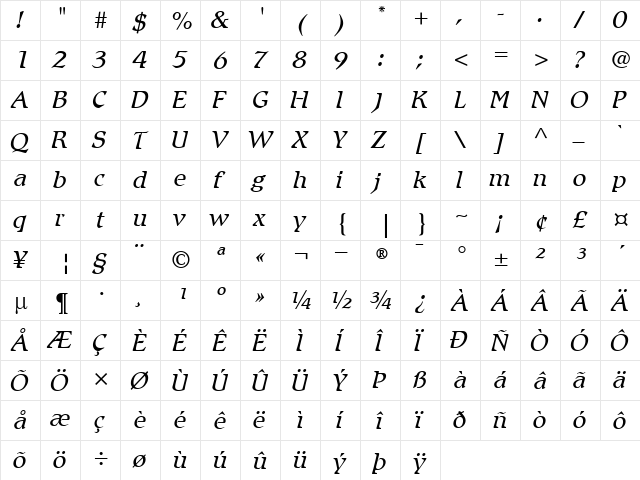
Romic-Light LightItalic Font Preview
Design Context for Romic-Light Typeface
Romic-Light offers clean, dependable letterforms without strong stylistic allegiance, making it a practical choice for designers who need flexibility. Its italic angle brings a sense of urgency and motion to the letterforms. The delicate stroke weight brings airiness and refinement to layouts.
Pro Tip: Try Romic-Light for annotation and caption copy alongside an upright companion — the contrast in angle creates a dynamic but ordered typographic system.